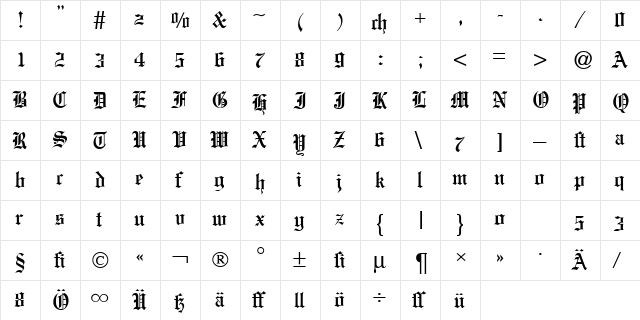
EnglandOldDB Normal
Design Context for EnglandOldDB Typeface
EnglandOldDB is a composed and adaptable typeface that performs quietly and consistently across a wide range of design contexts.